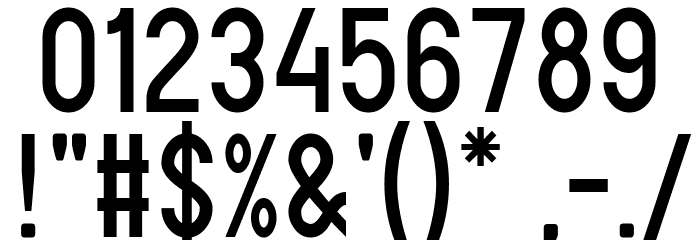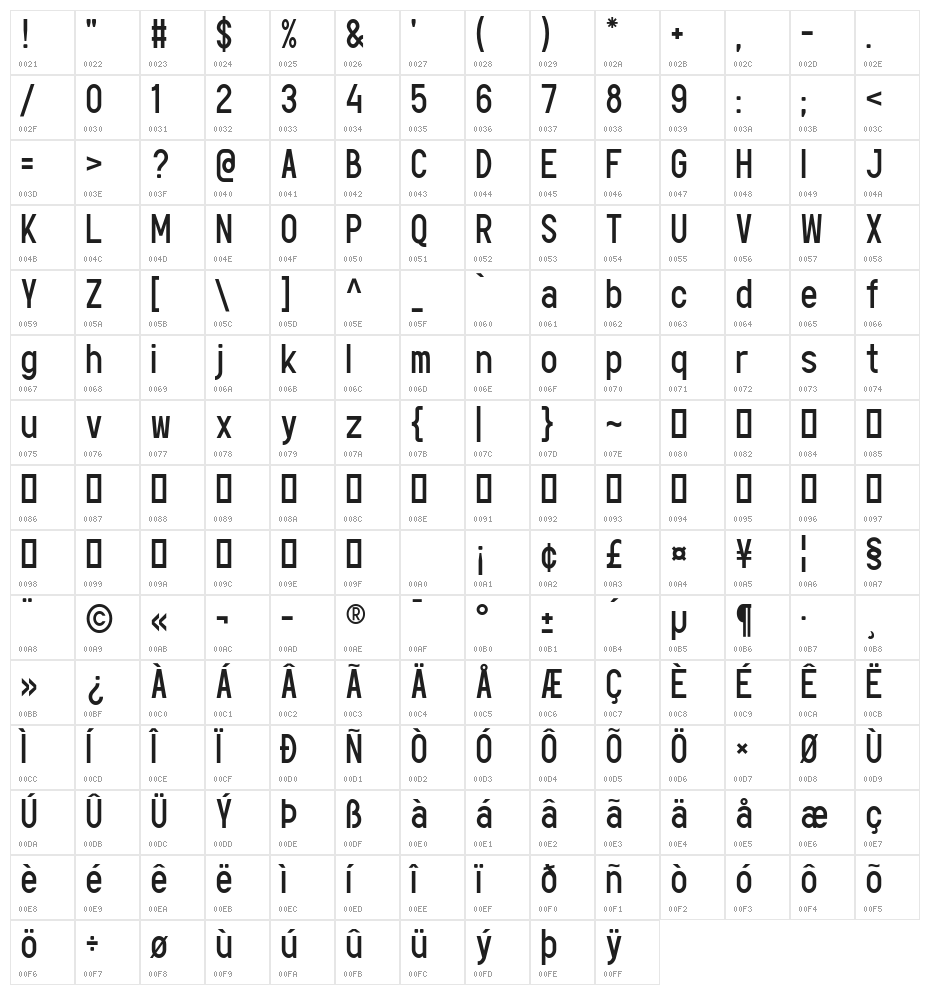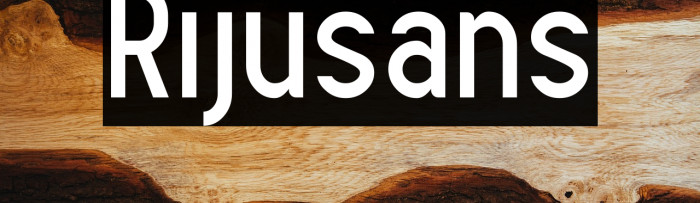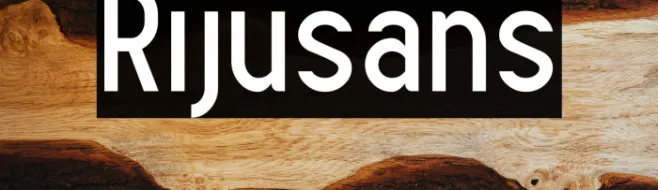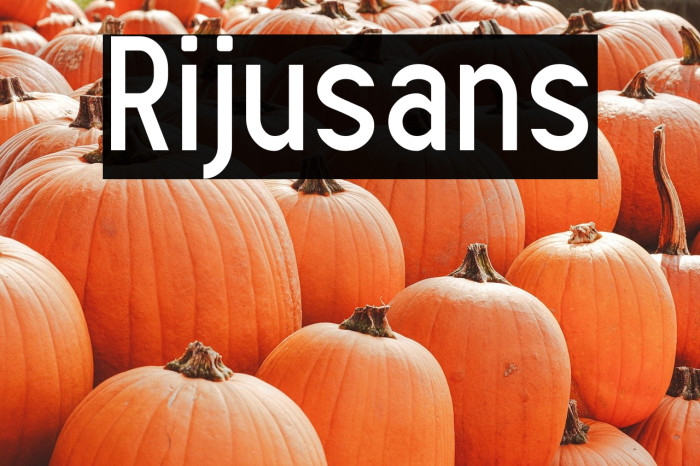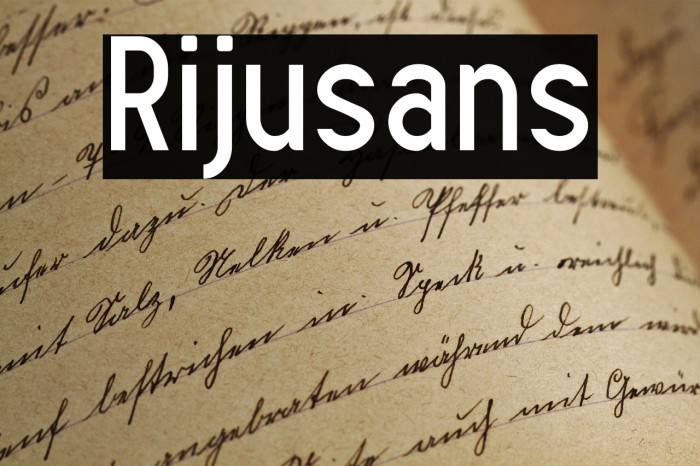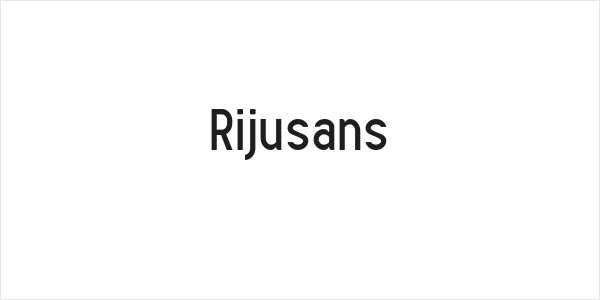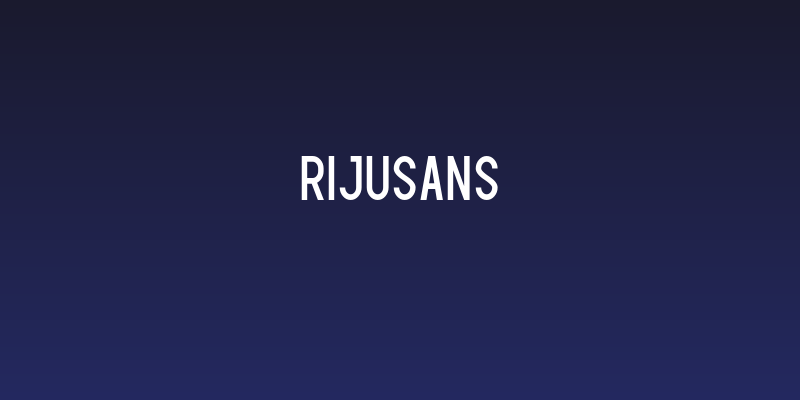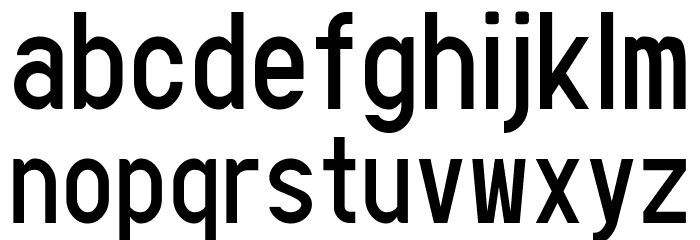
Rijusans Font
Rijusans Description
This font features a clean and modern sans-serif design with uniform stroke widths, giving it a sleek and contemporary appearance. The characters are well-proportioned, with a slightly condensed width that enhances readability while maintaining a compact form. The uppercase and lowercase letters are distinct and clear, with a geometric influence that adds to its modern aesthetic. The numerals are straightforward and align well with the overall style, ensuring consistency across different uses. Special characters are included, providing versatility for various applications.
| Proposed Projects | Ideal for branding, web design, advertising, and editorial projects where a modern and clean look is desired. |